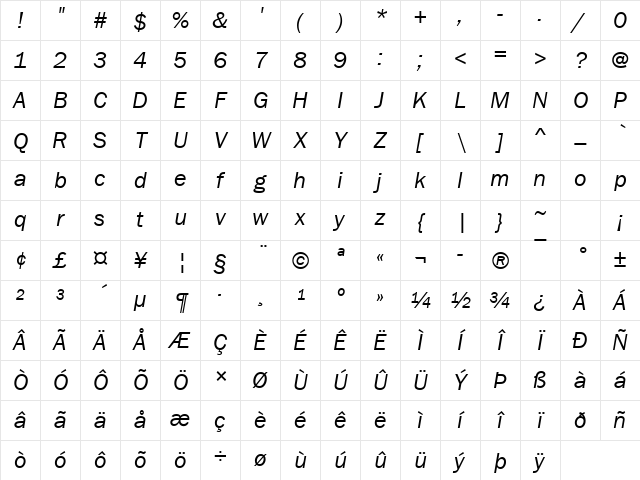
Franklin Gothic Book Italic
Complete Franklin Gothic Book Italic glyph index. Displaying only characters natively supported by Franklin Gothic Book Italic font.
Design Context for Franklin Gothic Book
Franklin Gothic Book takes a clean, functional approach - its unadorned letterforms prioritise legibility and work reliably across screen and print environments. The slanted form adds forward momentum and visual energy.
Font Pairing: Works well alongside a characterful serif or display font that can carry the expressive load while Franklin Gothic Book handles the functional copy.
Pro Tip: Use Franklin Gothic Book for UI labels, navigation, and short-form body copy where clean legibility is the priority.